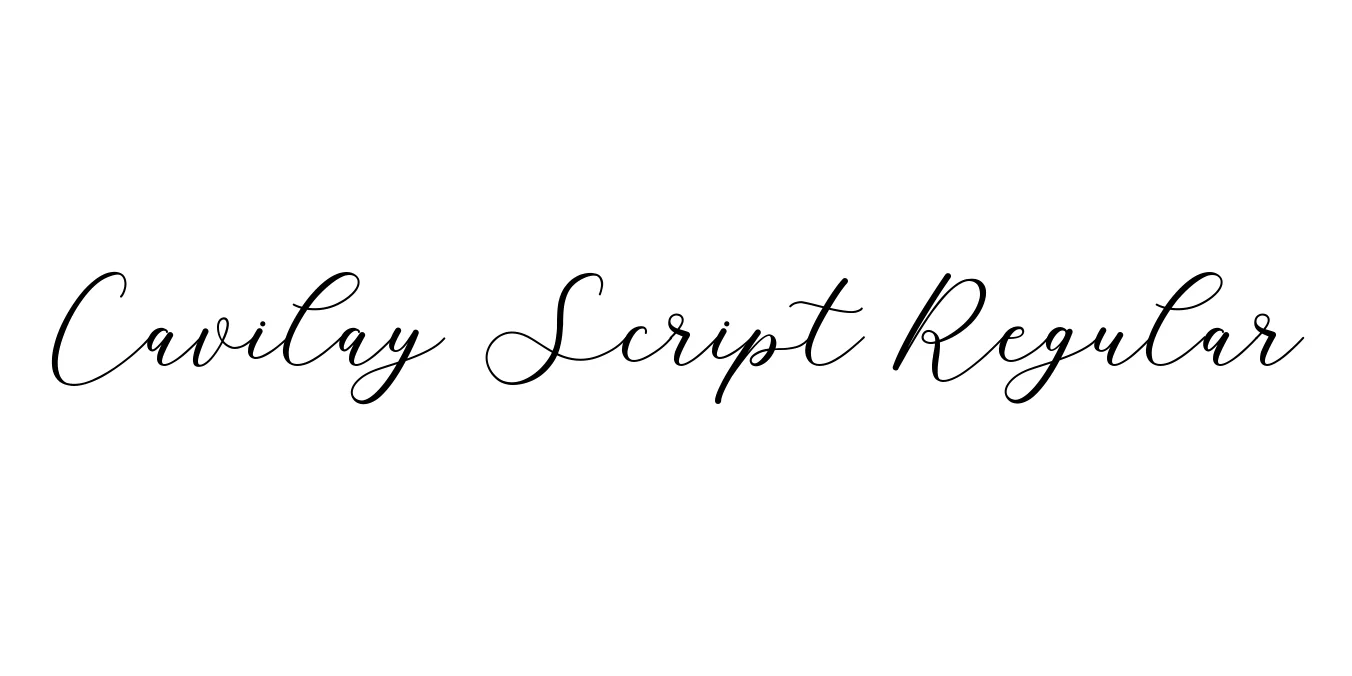
Cavilay Script Regular
Cavilay Script Regular is an elegant and fluid calligraphic typeface designed by Mans Greback. This font is characterized by its graceful, sweeping curves and sophisticated ligatures that mimic the motion of a professional fountain pen. It was specifically crafted to bridge the gap between traditional formal script and modern decorative lettering, providing a high-end aesthetic that feels both timeless and contemporary.
The typeface includes a comprehensive set of characters with smooth transitions and balanced weight, making it highly legible despite its ornate nature. Cavilay Script is widely used in premium industries for its ability to convey a sense of luxury and personal touch. Its artistic flourishes make it an exceptional choice for designers looking to add a layer of prestige and handcrafted beauty to their creative projects.
Cavilay Script Regular Best Uses
Ideal for creating high-end invitations, menus, and place cards with a romantic feel.
Perfect for luxury fashion labels, jewelry brands, and professional logos.
Excellent for mastheads, pull quotes, and sophisticated magazine layouts.
Great for creating stylish quote graphics and personalized digital content.